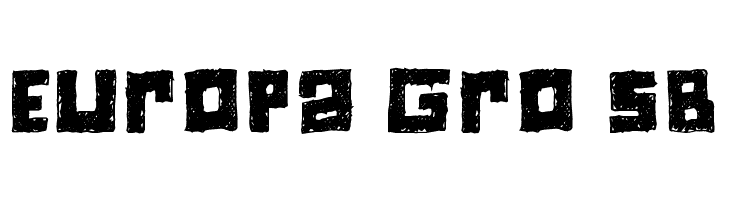
A bold, industrial font with uppercase letters in sawblade shapes.
A decorative font with characters formed by seed-like shapes, offering a playful and organic look.
A decorative font with characters encased in sunflower-like shapes, offering a whimsical and artistic style.
( Fonts by Bartek Nowak - www.nowak.tv/fontoholic/ )
A bold, textured, and hand-crafted decorative font with a rugged appearance.
A bold, blocky font with a strong, geometric design.